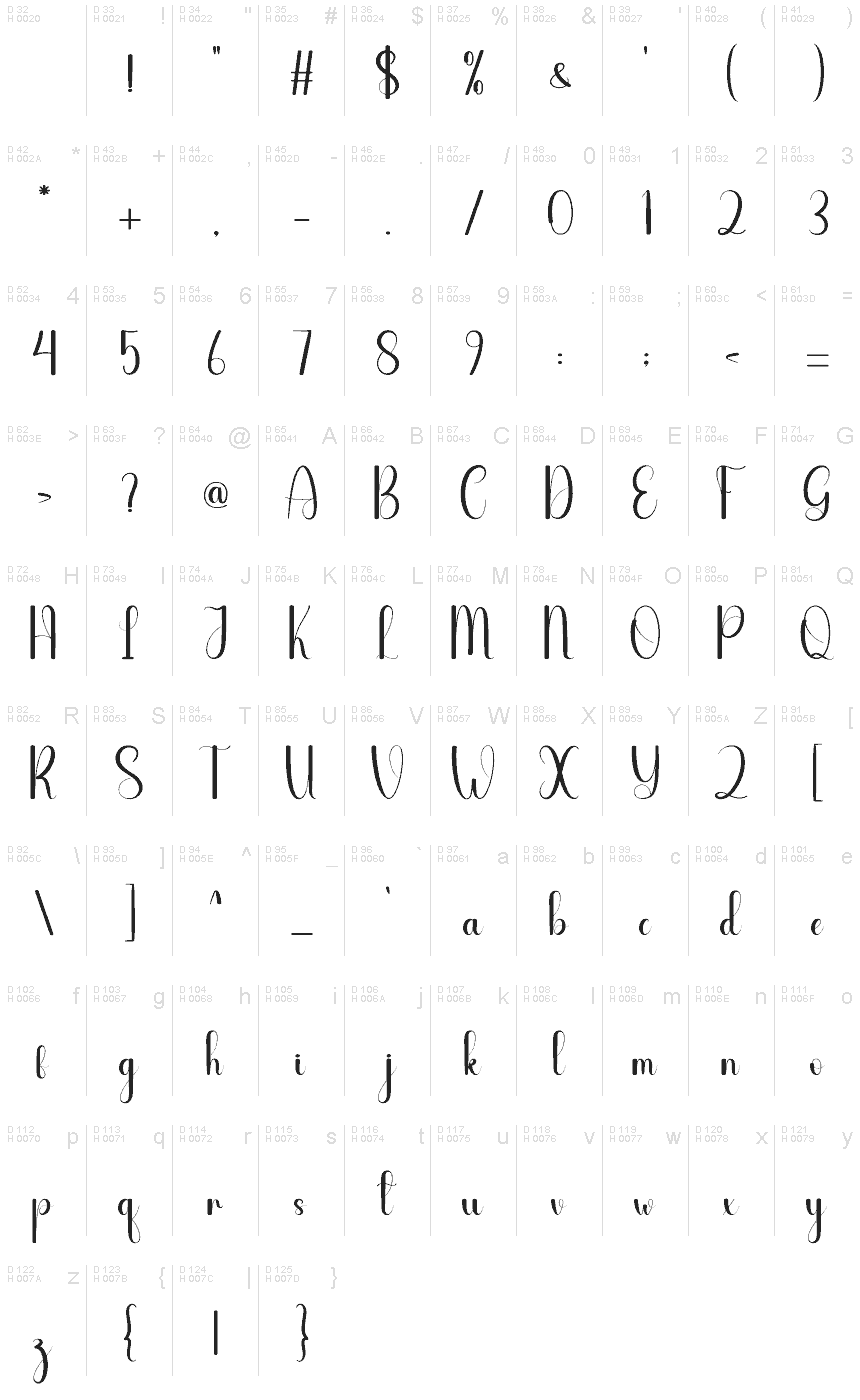
Bedtab
Bedtab font by Andi Moz is a free calligraphy font that effortlessly blends elegance with modern vintage. Its flowing and sophisticated style offers an ornamental touch, making it stand out as both historical and contemporary. The condensed structure further enhances its graceful and decorative appearance.
The unique aesthetic of Bedtab makes it perfect for use in branding for high-end products, fashion labels, invitations, packaging designs, logos, wedding stationery, headings for magazines or books, posters, greeting cards, website design elements, label tags for luxury goods (such as jewelry or watches), signage in boutiques or parks (particularly those with a vintage theme), restaurant menus—especially fine dining establishments.